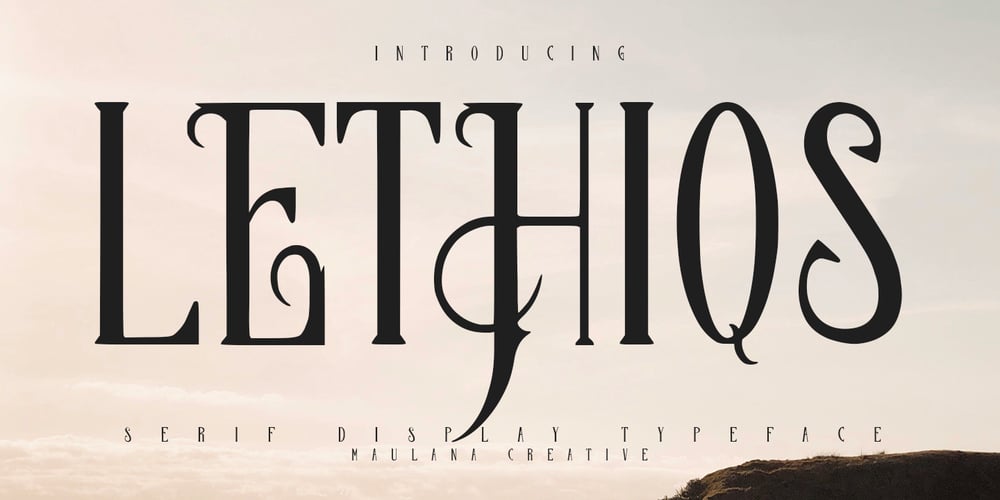
MC Lethiqs
MC Lethiqs font
MC Lethiqs Font Family was designed by Gilang Maulana and published by Maulana Creative. MC Lethiqs contains 1 styles and family package options. Lethiqs serif display decorative typeface font. Bold stroke, fun character with a bit of ligatures and alternates. To give you an extra creative work. Lethiqs typeface display font support multilingual more than 100+ language. This font is good for logo design, Social media, Movie Titles, Books Titles, a short text even a long text letter and good for your secondary text font with script or serif. Make a stunning work with Lethiqs typeface display font.Cheers,Maulana Creative